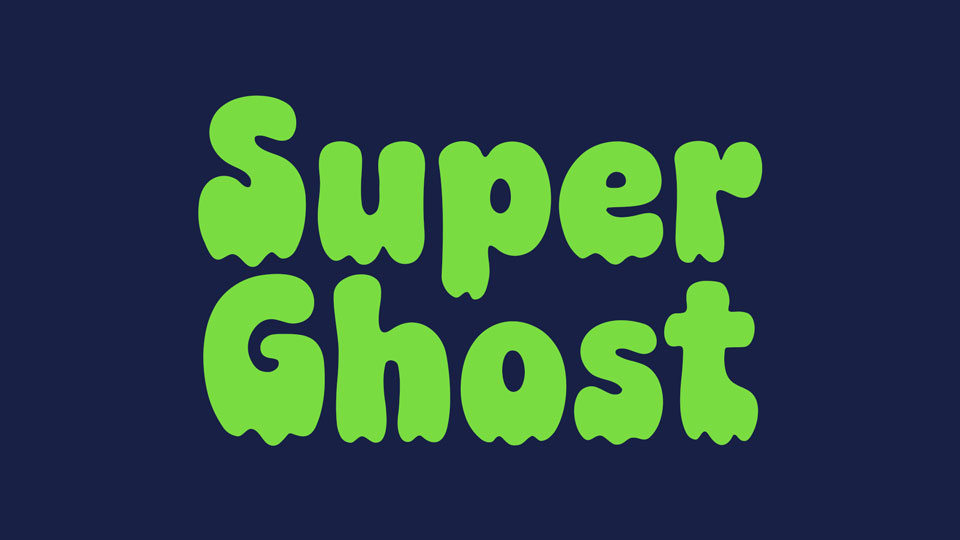
Download Super Ghost font, a soft, playful display typeface designed to look like melting shapes and friendly ghost forms. Its rounded, dripping letterforms create a spooky-but-cute mood, making it perfect for fun, seasonal, and attention-grabbing designs.